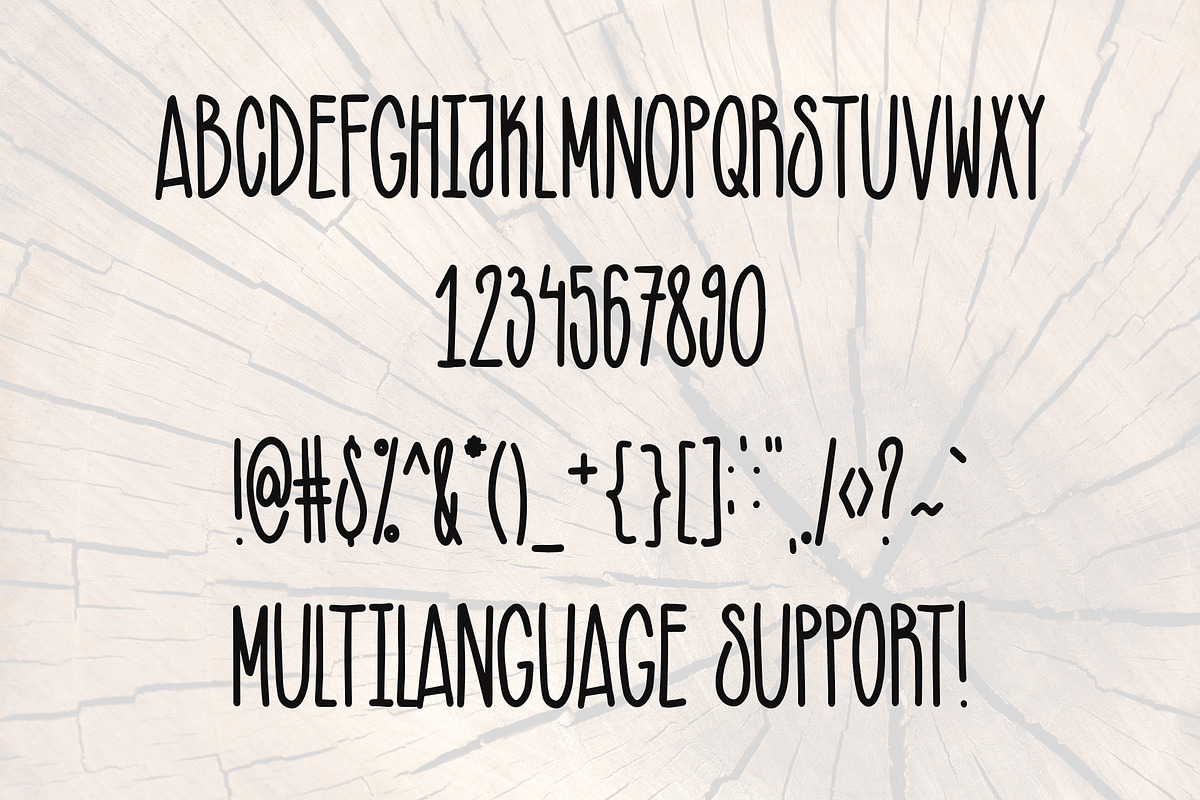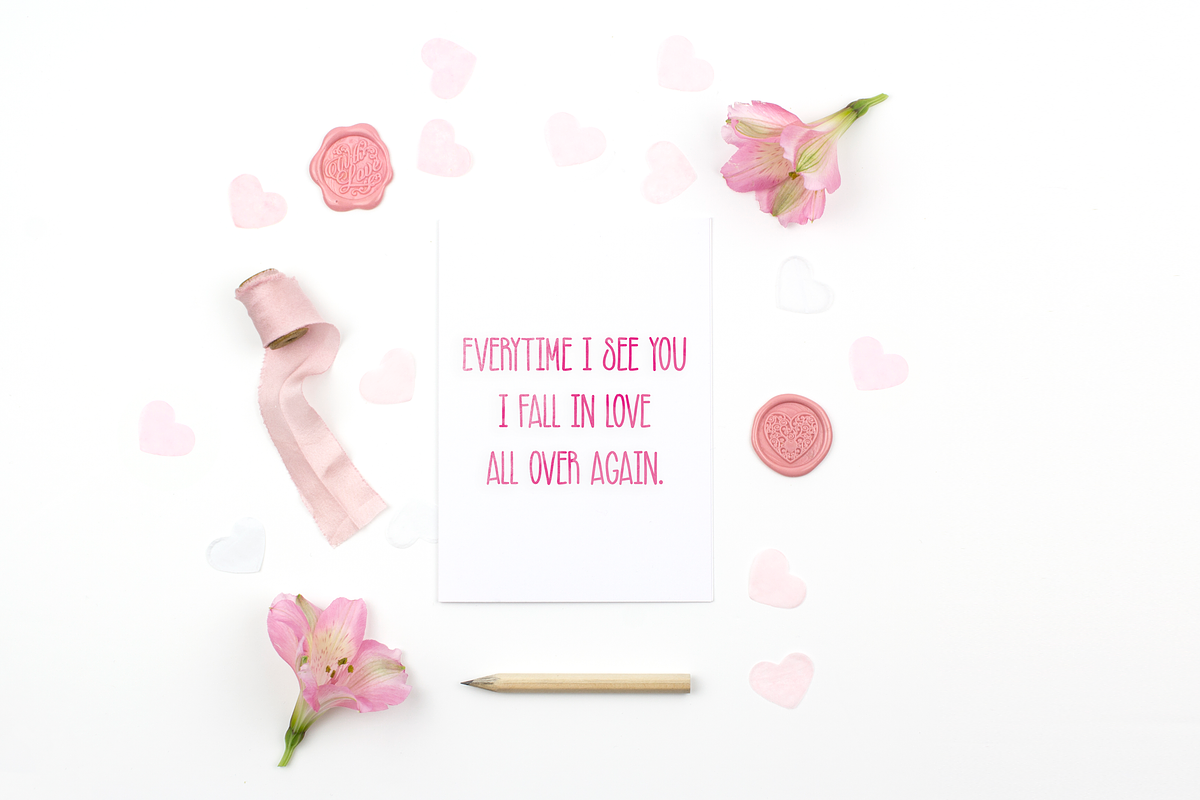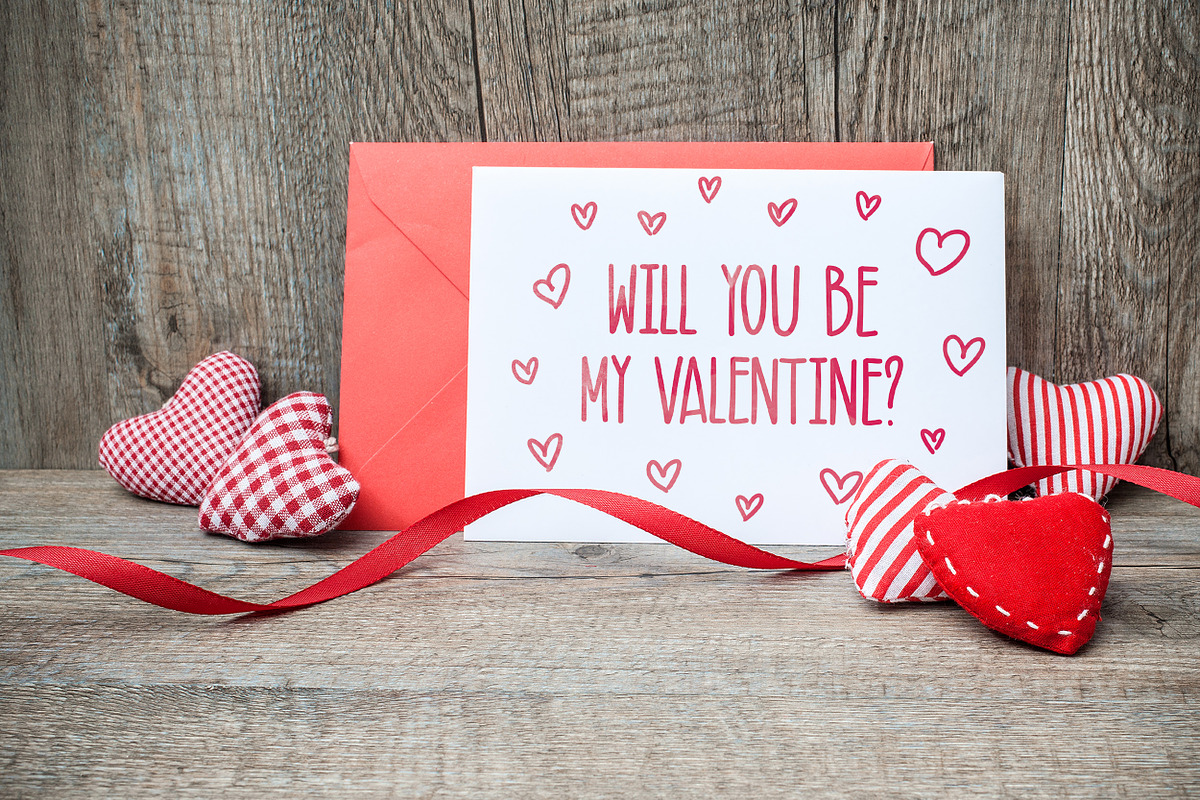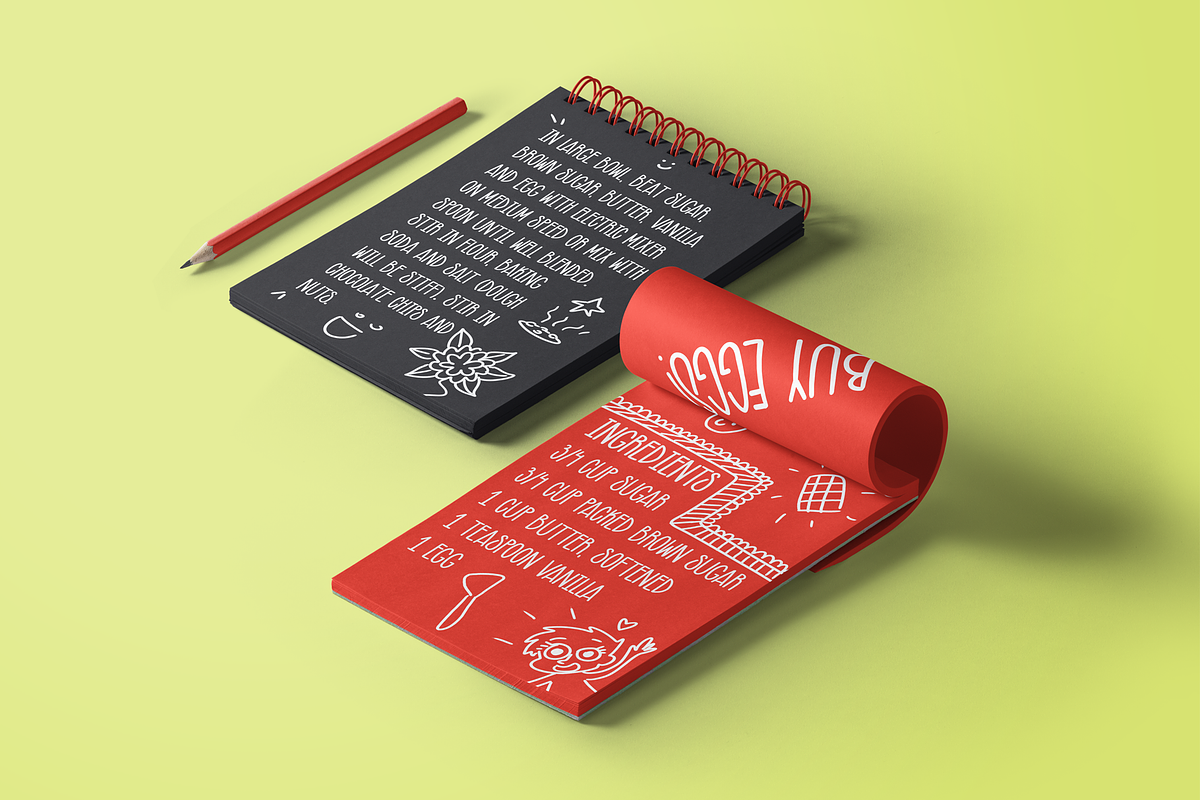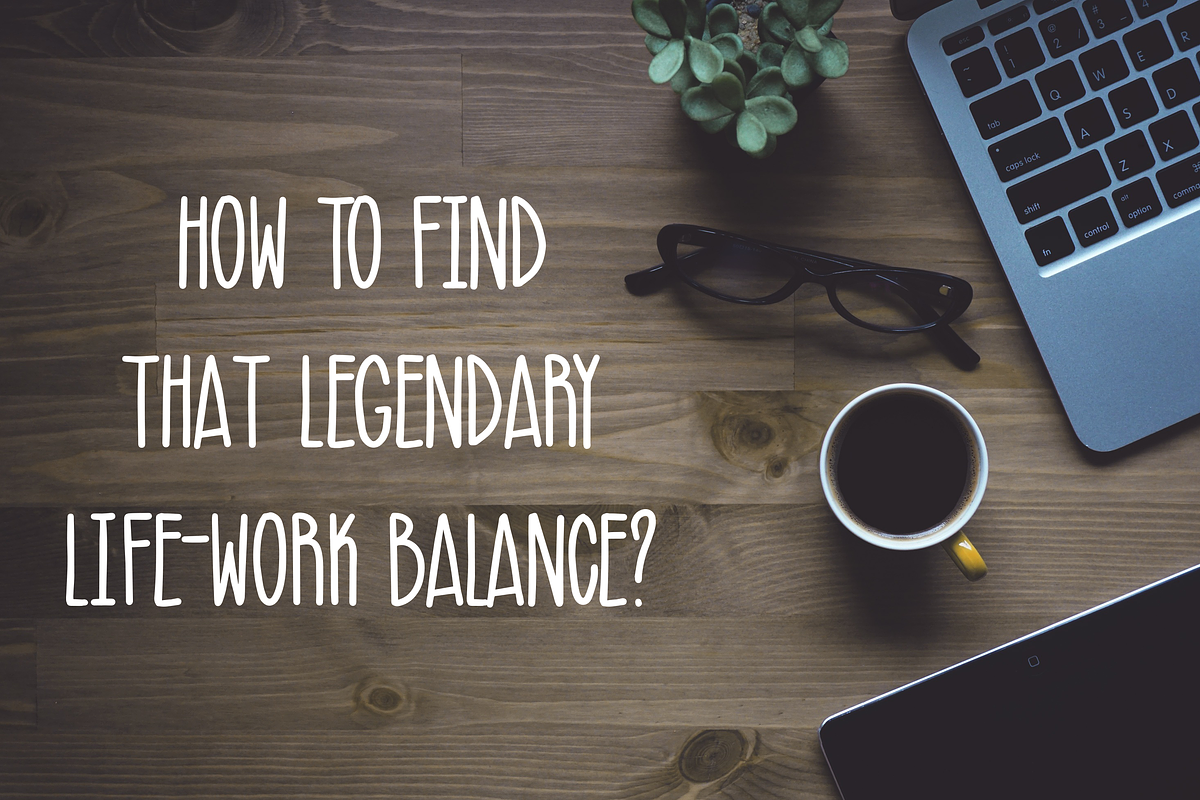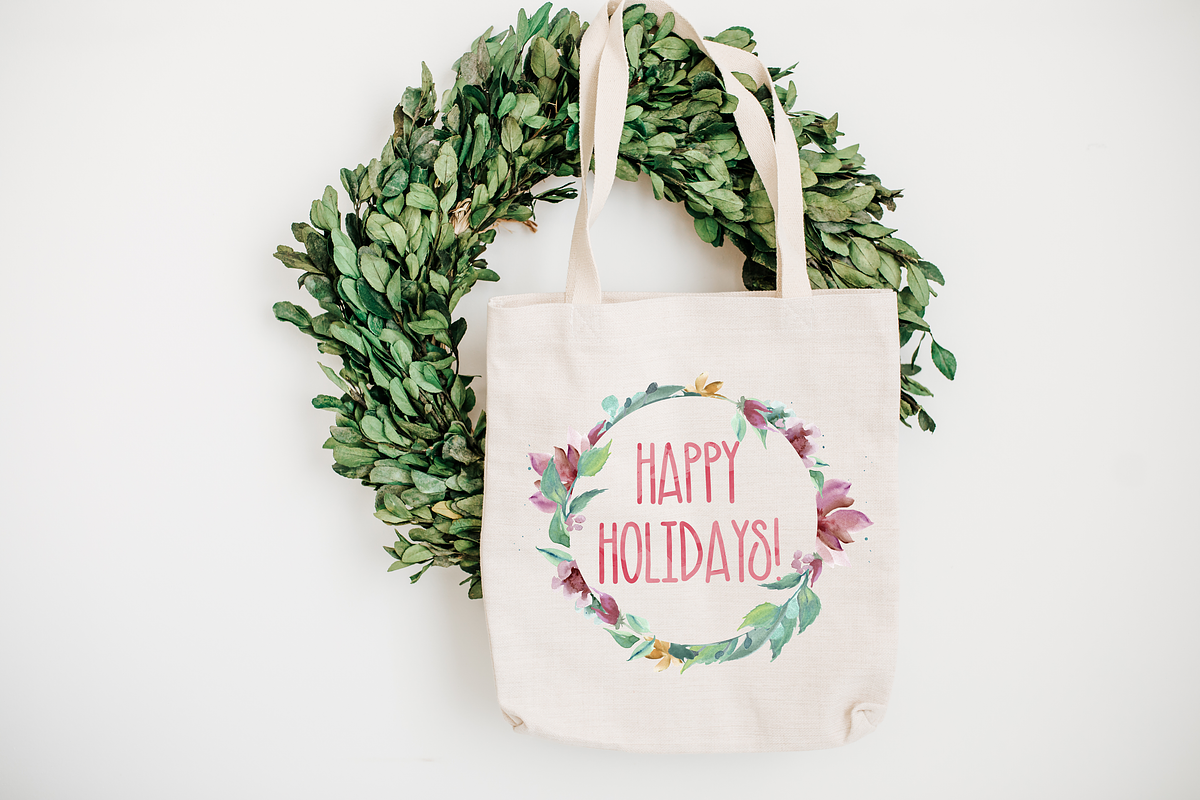
Agnesi Hand Drawn Font
Agnesi is hand drawn, all caps, unique, clear font based on calligraphy with multilingual support. It's perfect for all creative projects such as cooking binder with recipes, social media posts, prints, cards, invitations, titles, headlines and many more!
- Agnesi is hand drawn, all caps, unique, clear font based on calligraphy with multilingual support.